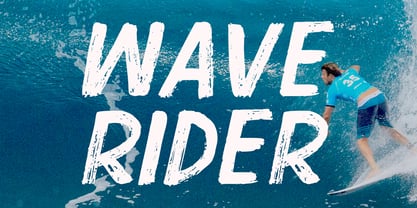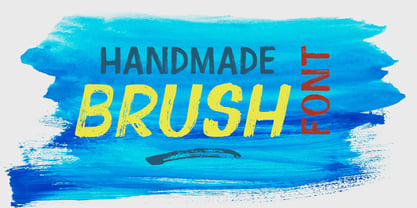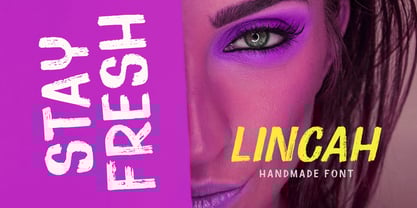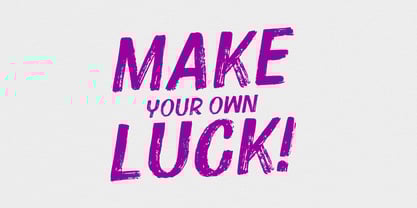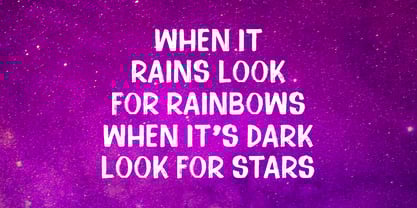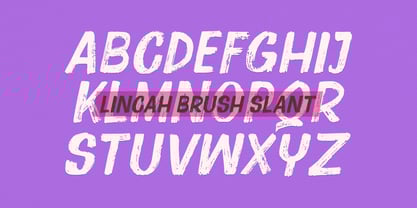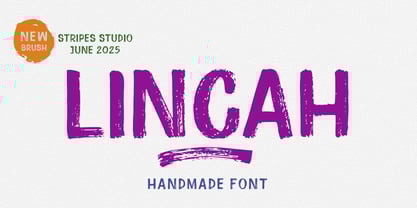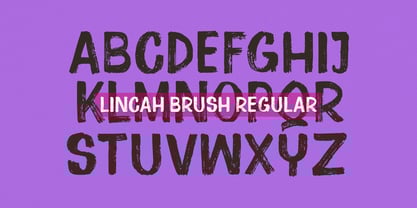
Lincah Brush
by Stripes Studio
The Lincah Brush Font Family was designed by Yur Lis and published by Stripes Studio. Lincah Brush contains 3 styles and family package options.
Lincah Brush a new font that is brushed is very attractive with a natural, detailed and perfect texture, also has an additional Lincah Brush Underlines.
Perfect for brand projects, logos, product packaging, posters, invitations, greeting cards, news, blogs, everything including personal charm etc.